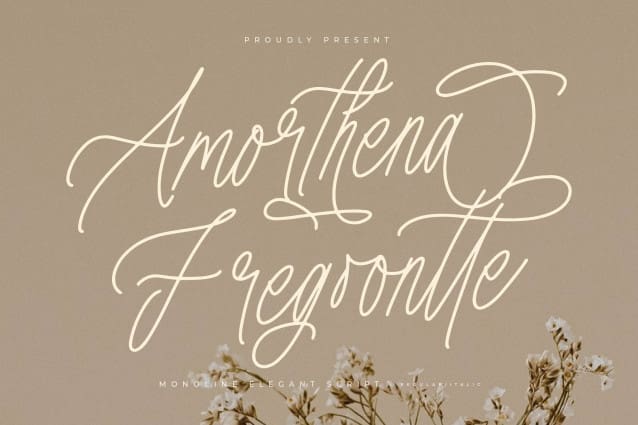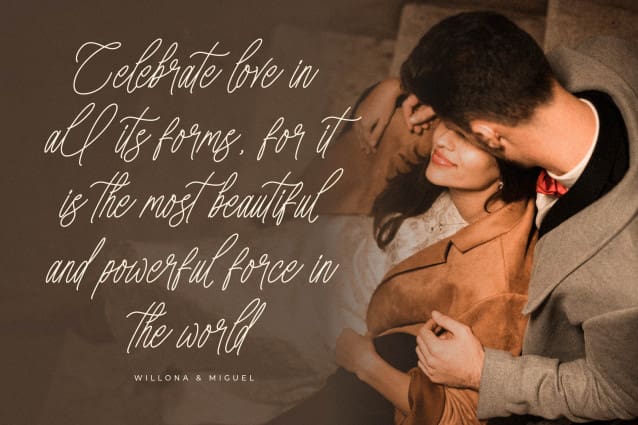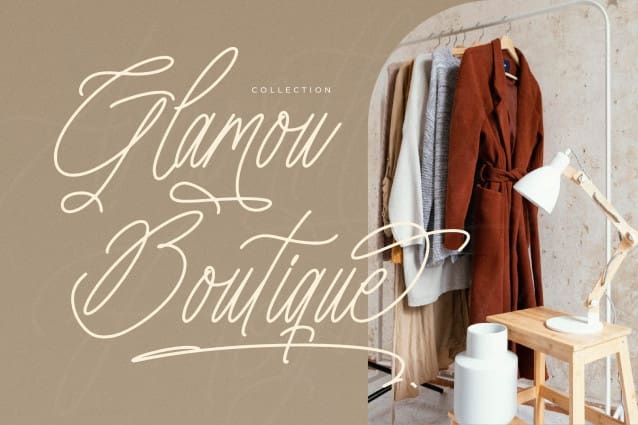
Amorthena Fregoontte Font
Amorthena Fregoontte Font – Monoline Elegant Script , from Letterena, is a Luxury Script font, suitable for any projects such as: logos, branding projects, homeware designs, product packaging, mugs, quotes, posters, shopping bags, t-shirts, book covers, name card, invitation cards, greeting cards, label, photography, watermark, special events, and all your other luxury and beautiful projects that need a Luxury serif taste.